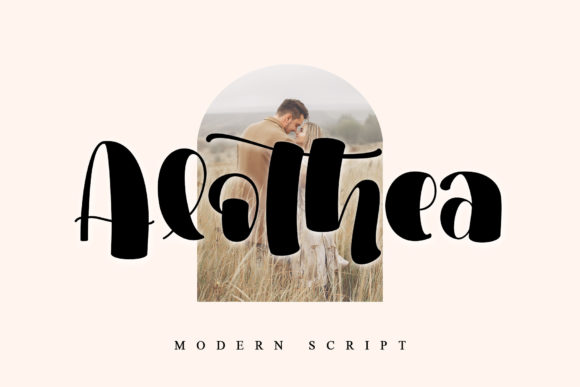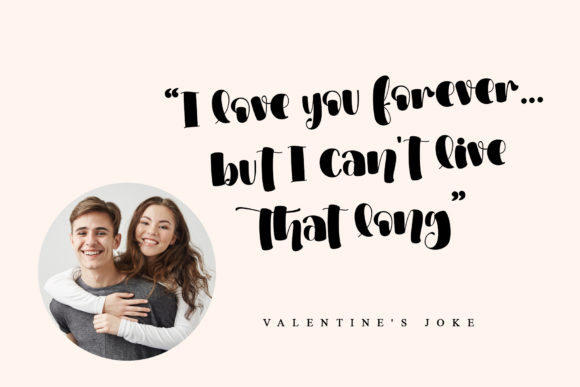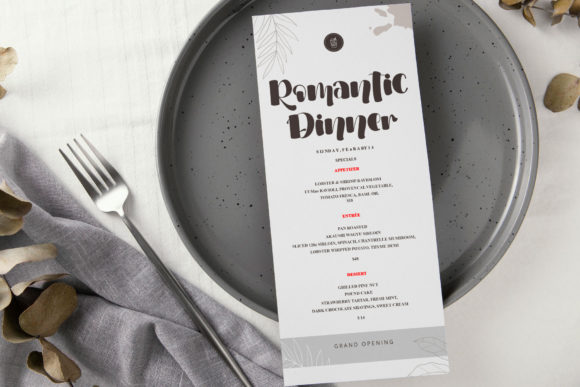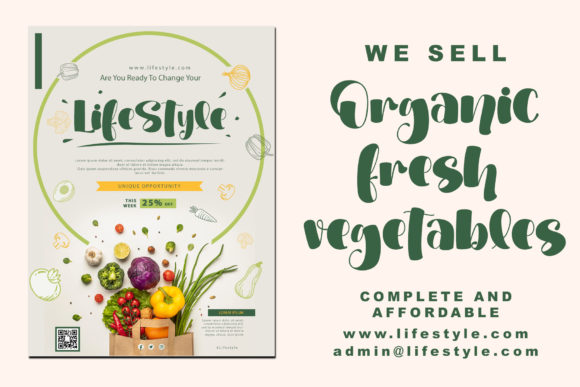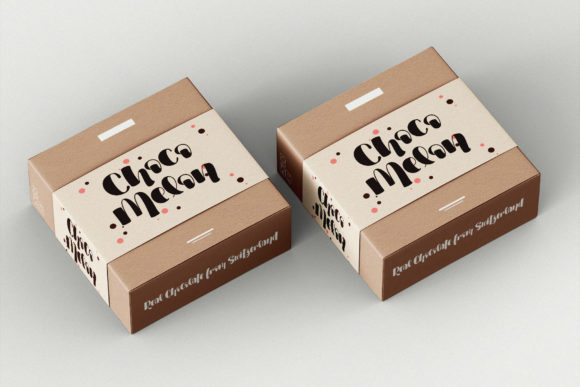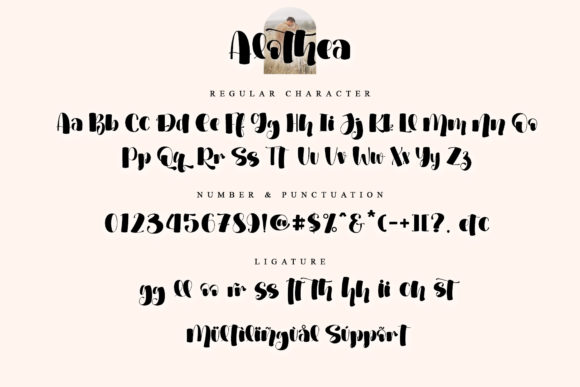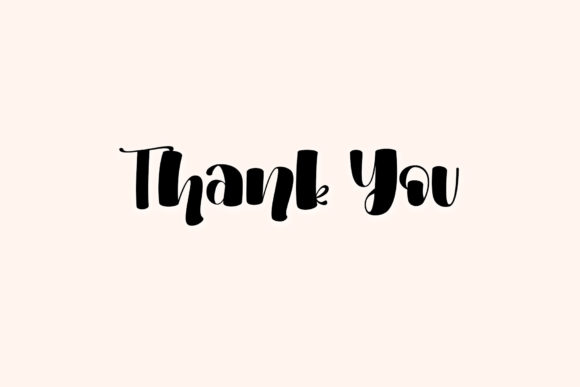
Alothea Font
About Alothea Font
Alothea is a friendly and modern script font featuring a quirky style. Beautiful and versatile, this font will become your top choice for a wide spectrum of creative ideas in no time!